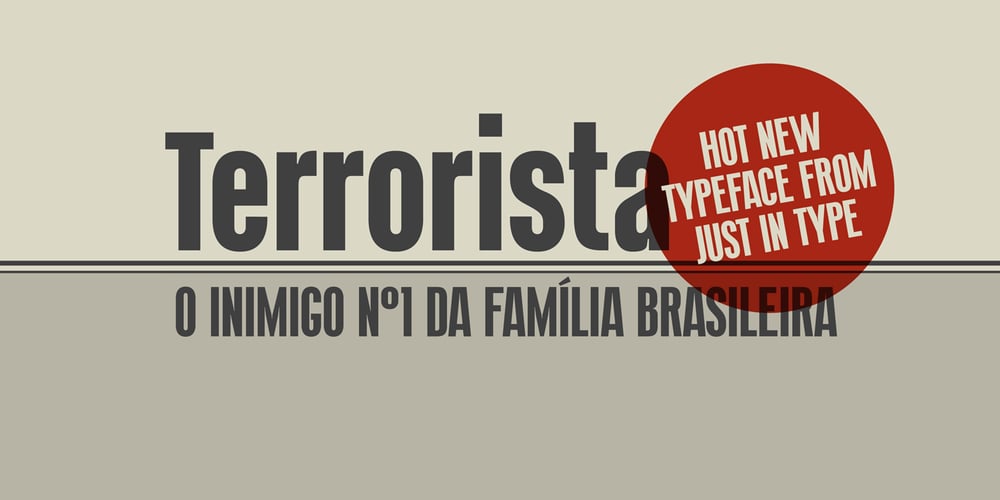
Terrorista Font Family was designed by Tony de Marco, Bernardo Faria and published by Just in Type. Terrorista contains 3 styles and family package options. Terrorista is a homage to everyone who fought against the Millitary Regime in Brazil from 1964 to 1985. The Terrorista Marighella features generous inktraps, fits perfect for small sizes. Terrorista Dilma has the same design as the Marighella, but without inktraps, made for display. The last typeface from the package is Terrorista Lamarca, stencil version, all three weights have the same metrics, making it easier to use them together. Have a look at the Terrorista Specimen.